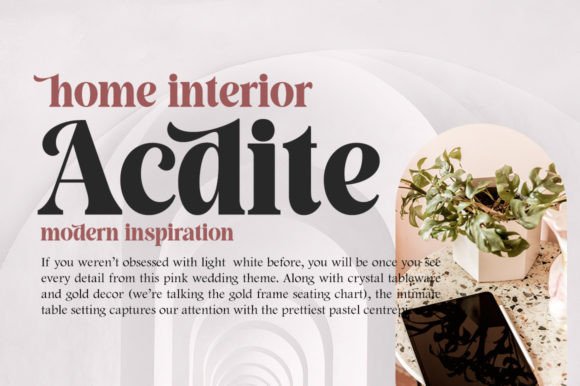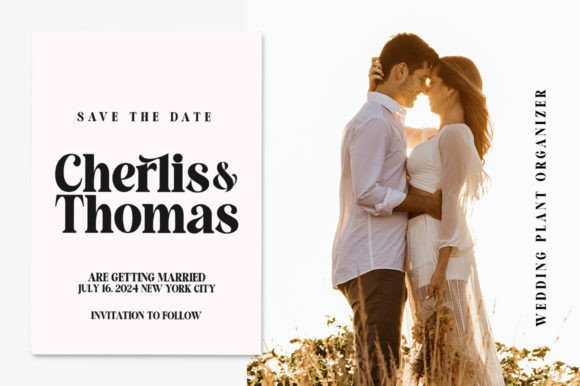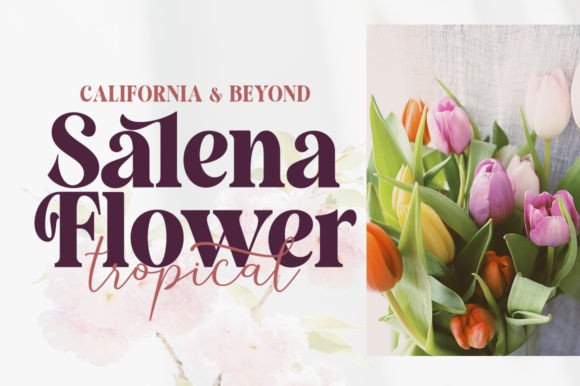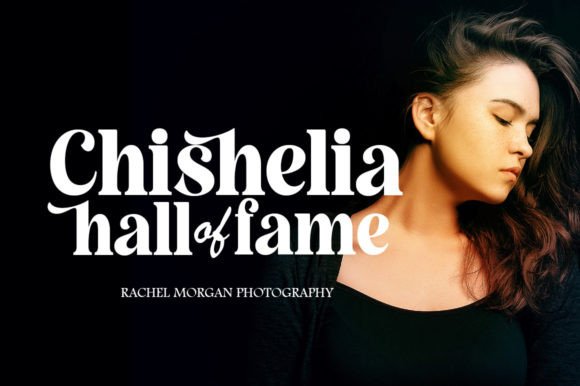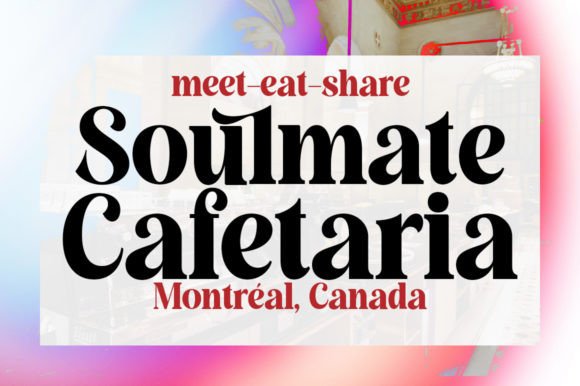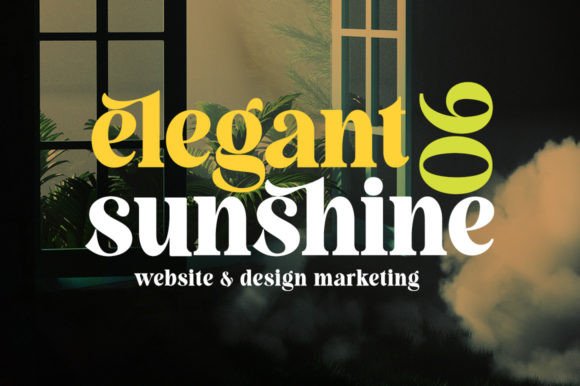
Introduction to Rangile Font
Rangile is a cool serif font with a classy and modern style that makes it look elegant, natural, and stylish.
Rangile will be perfect for invitations, logos and branding, advertising, watermarks, social media posts, product packaging, product designs, labels, stationery, special events, and more .